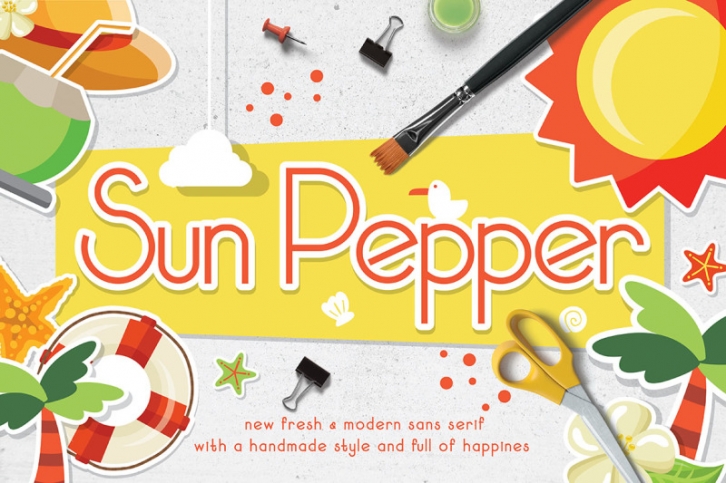
Sun Pepper a new fresh & modern sans serif made with happiness. Its really great font for your title, quotes, etc. Just have a great fun with Sun Pepper on your design! ---
- Sun Pepper Regular, Sun Pepper Bold, Sun Pepper Italic, Sun Pepper Bold Italic - Uppercase, lowercase, numeric, punctuation, support Multilanguage